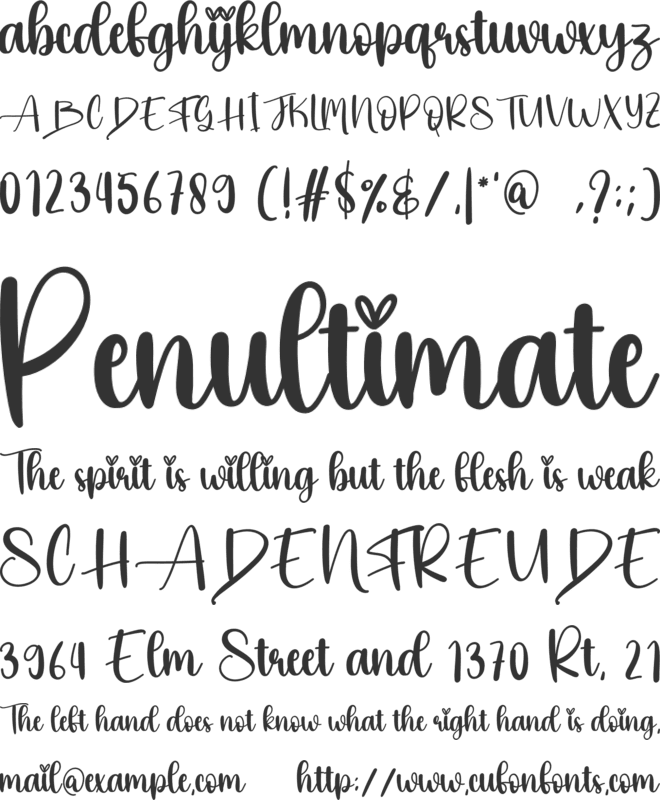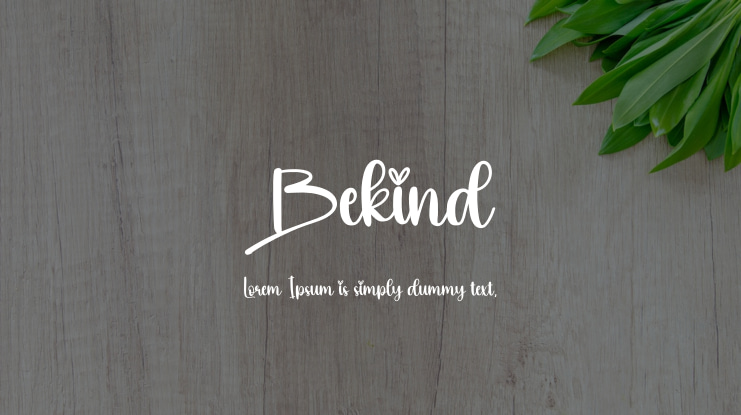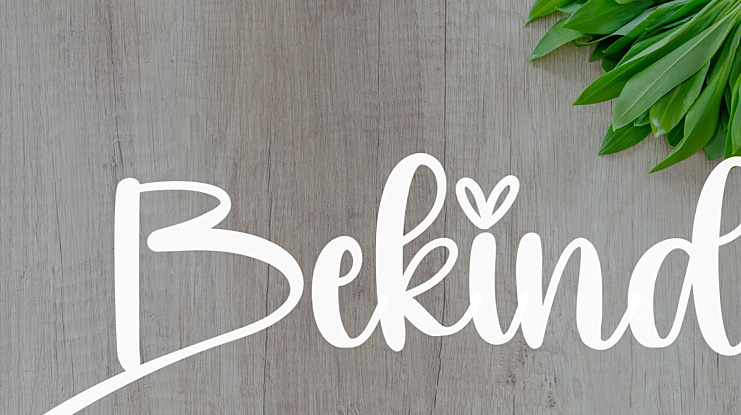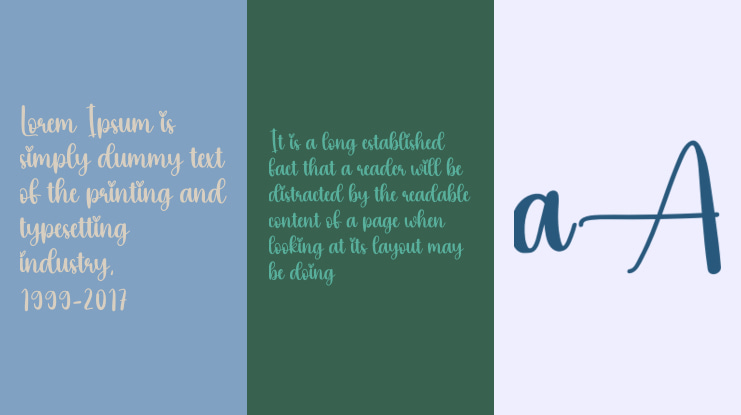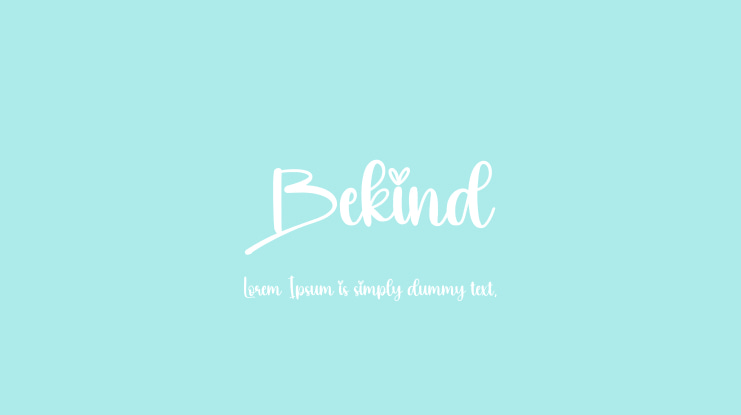
Bekind Font
Our collection of stylish lettering is perfect for various applications such as wall displays, wedding invitations, social media post logos, advertisements, product packaging, labels, photography, watermarks, invitations, stationery, and any project that requires beautiful handwriting.